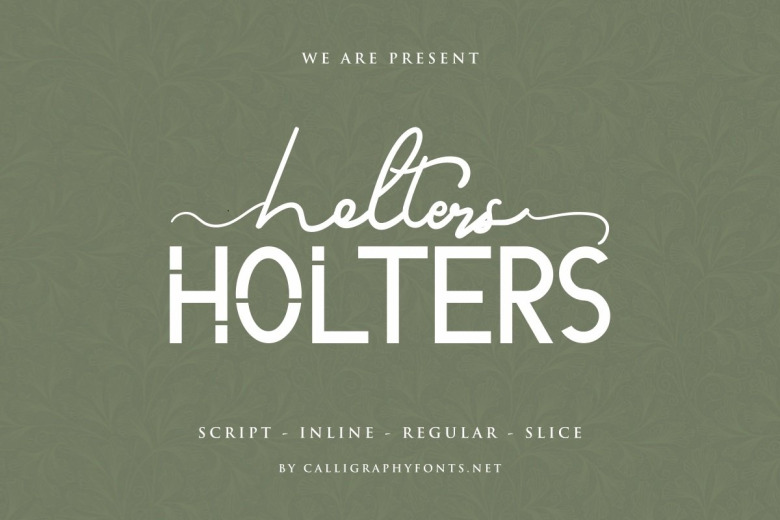
Holters Font Duo Free
Holters Font Duo is a basic and script font duo with multiple different font styles. The theme of these fonts are modern, elegant, luxury, glamour, classic and sophisticated.